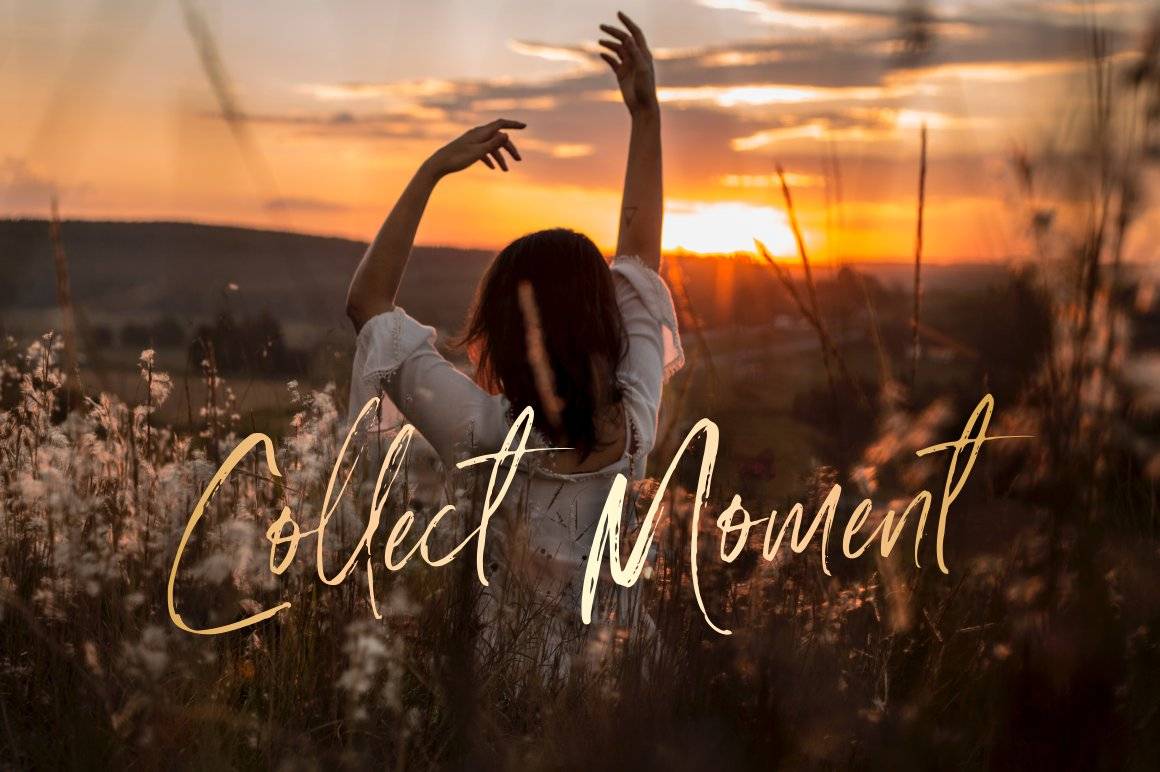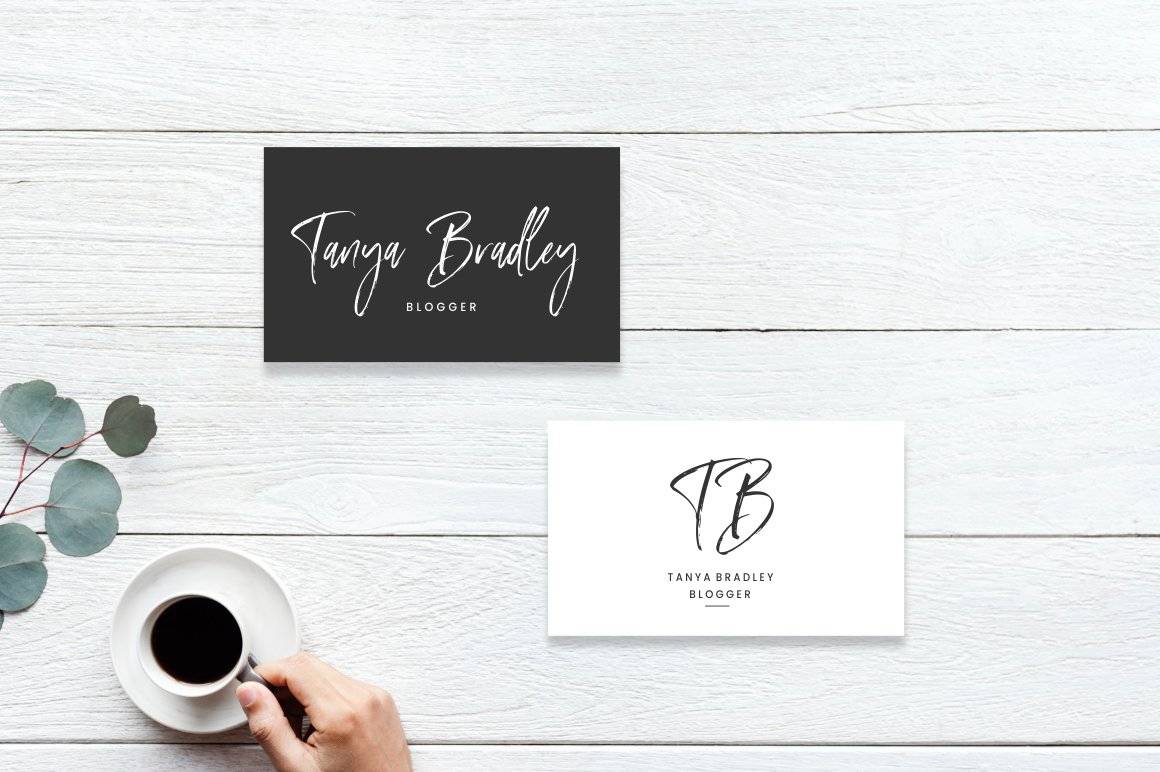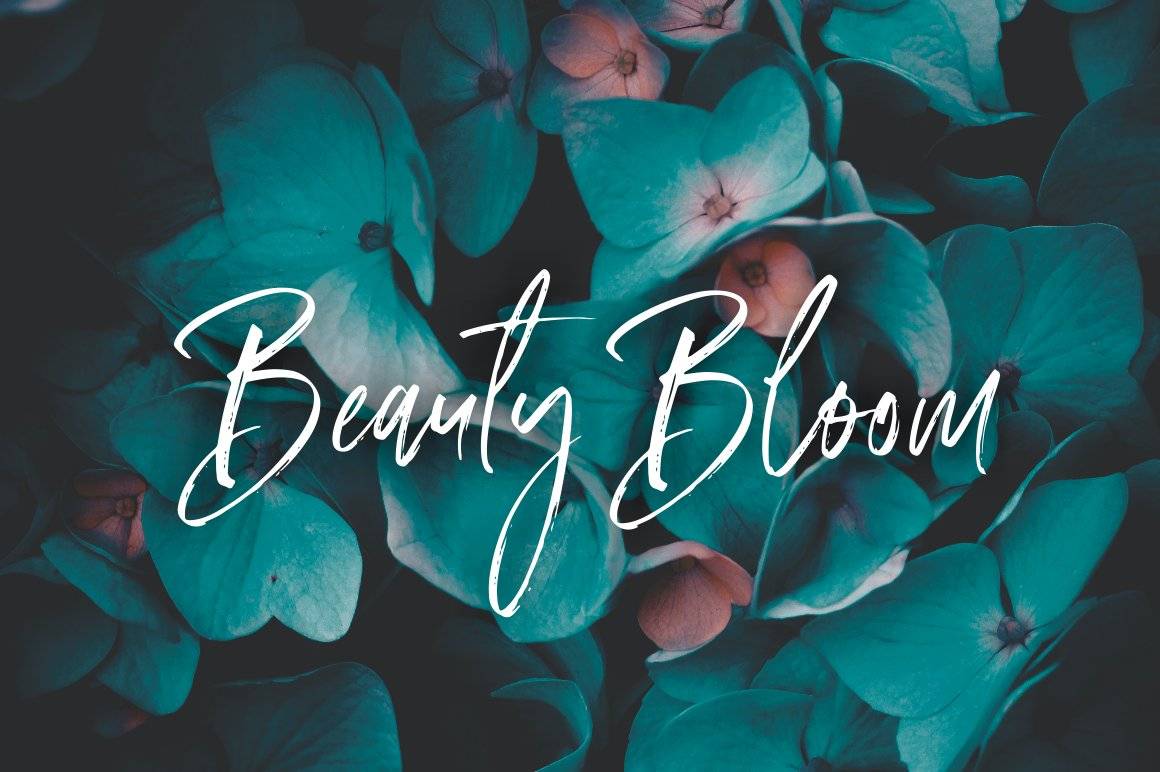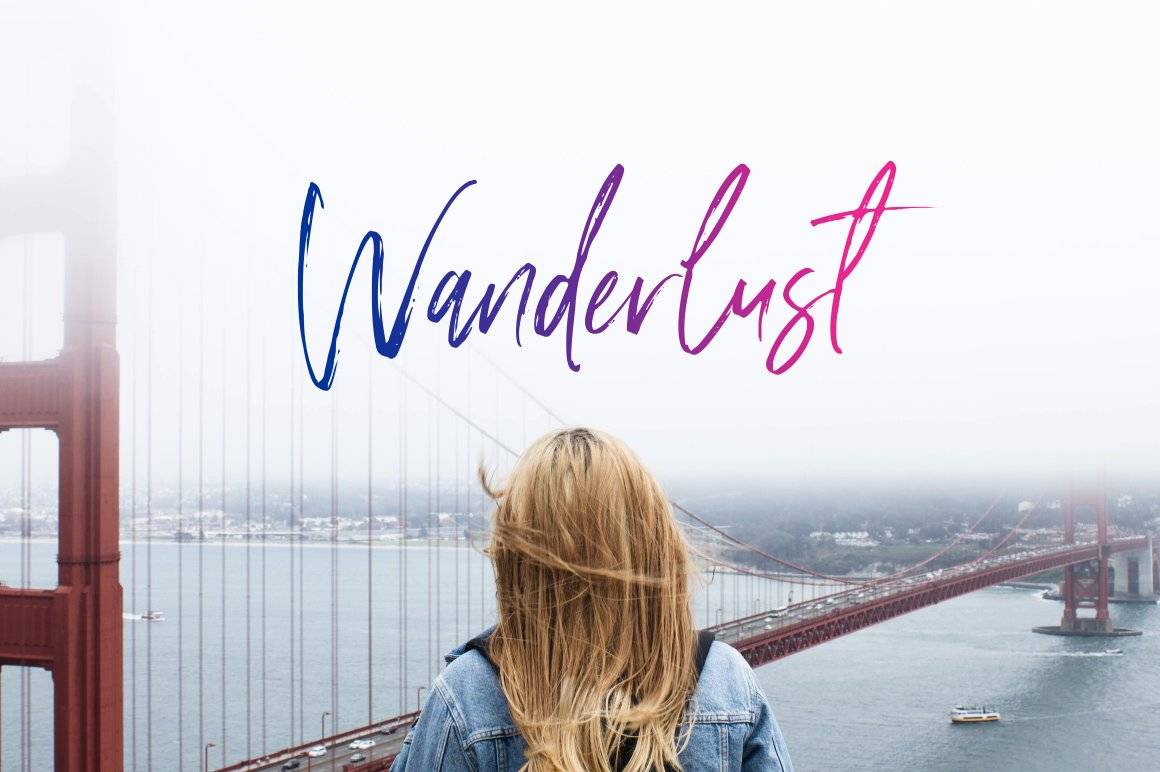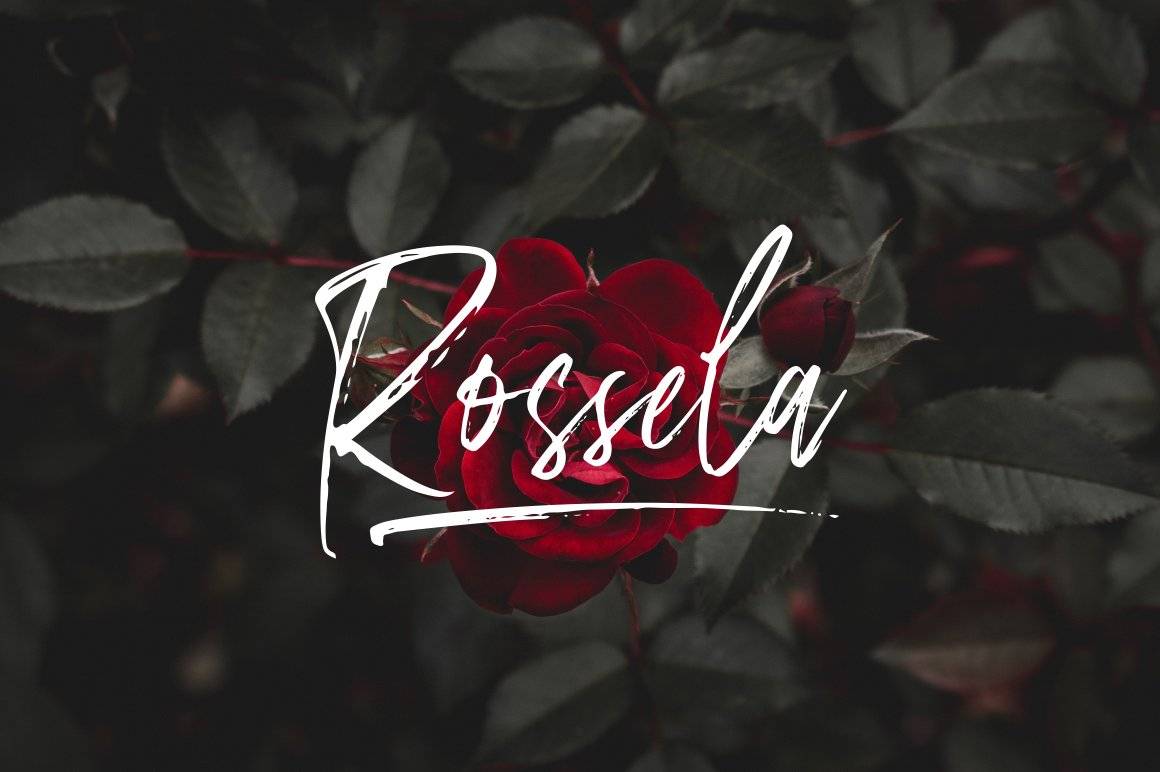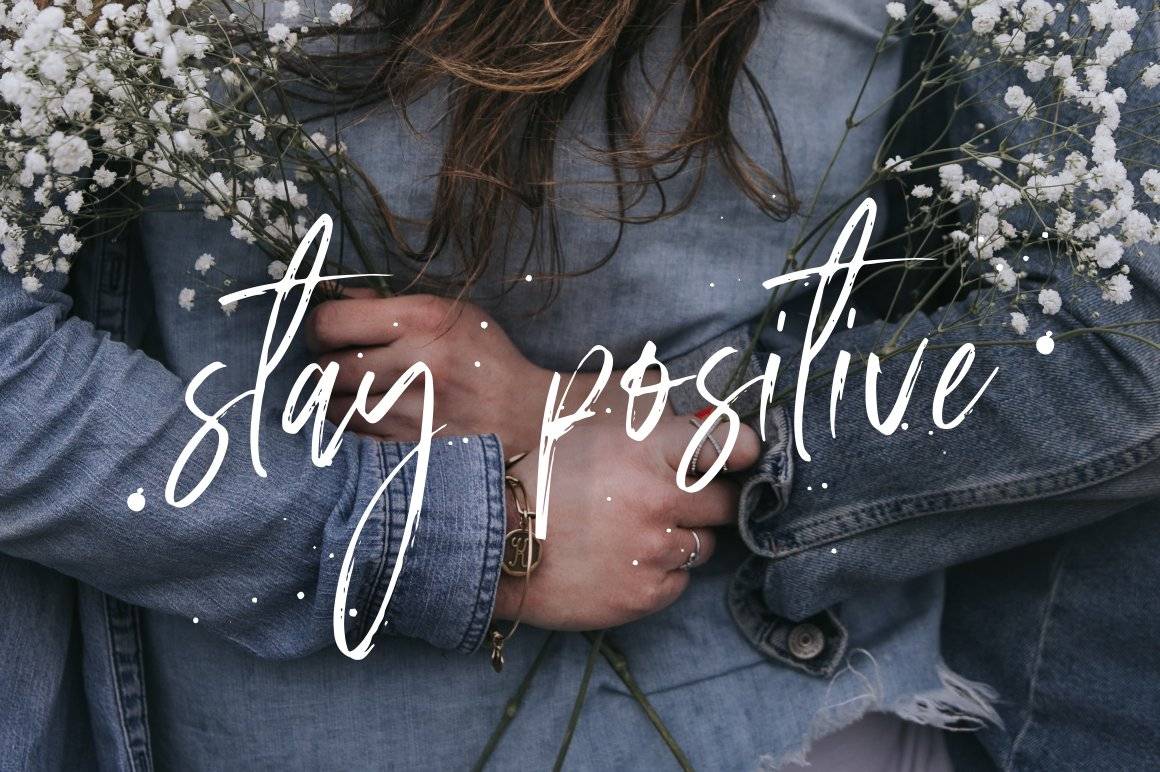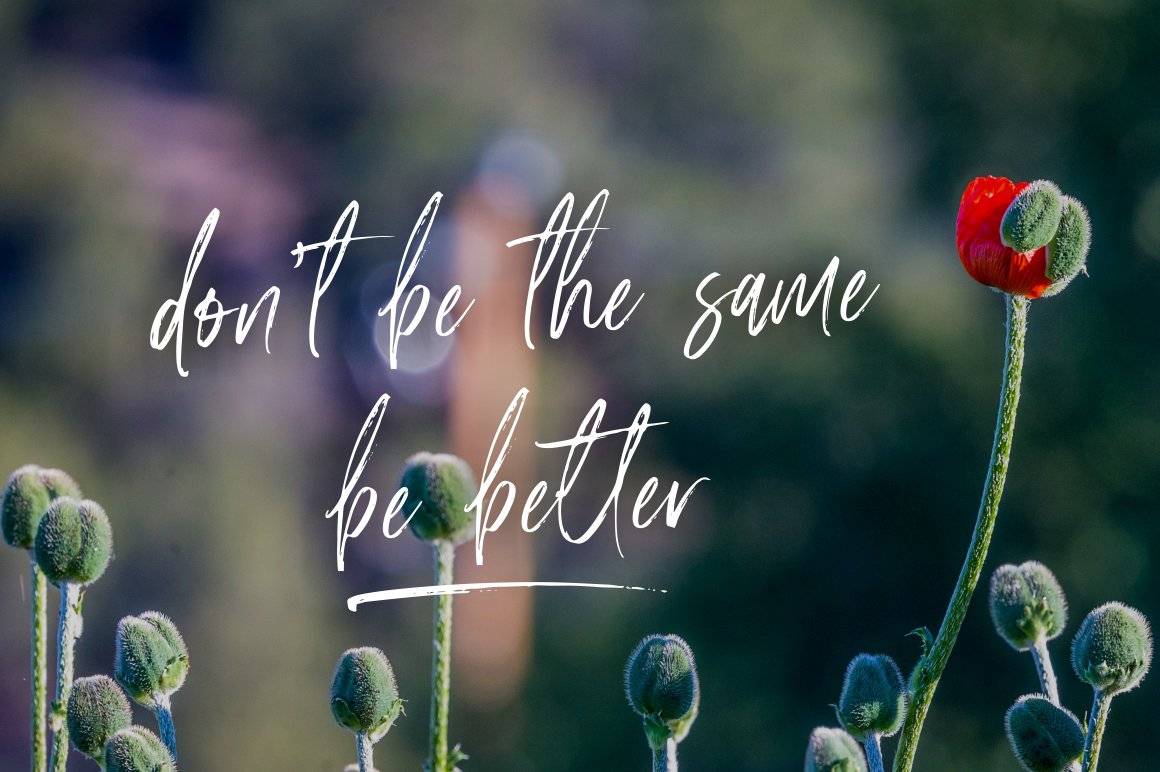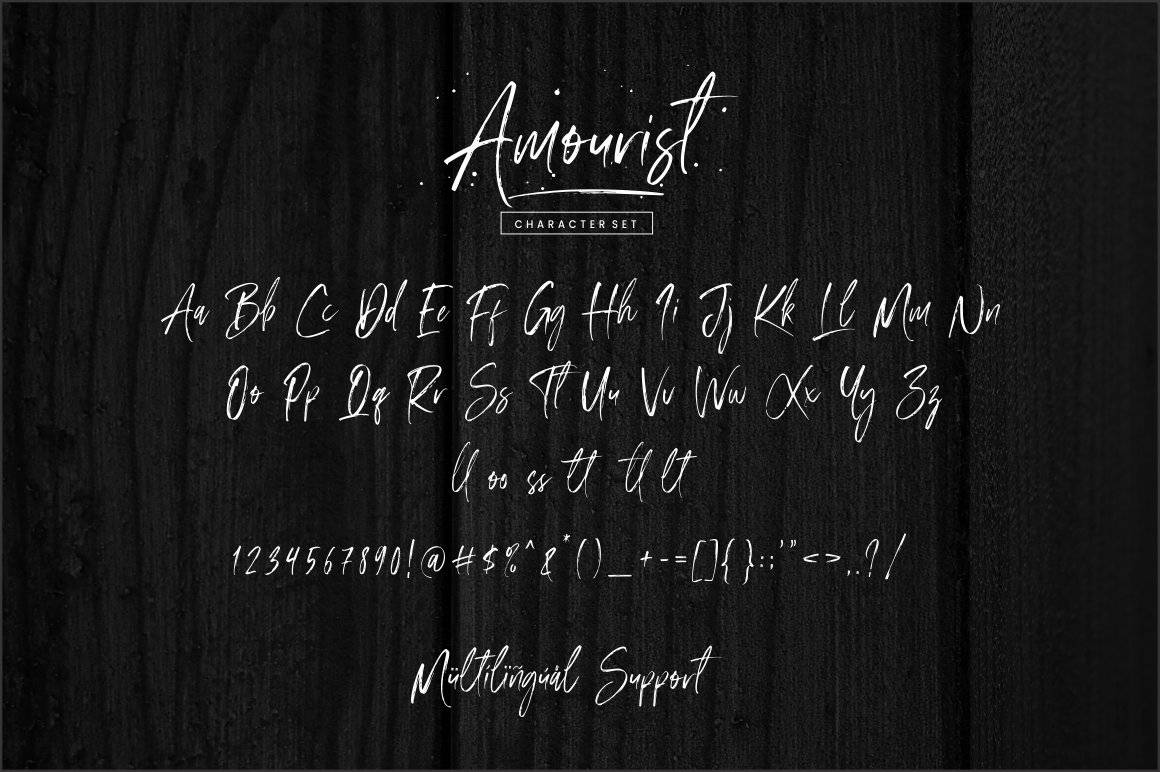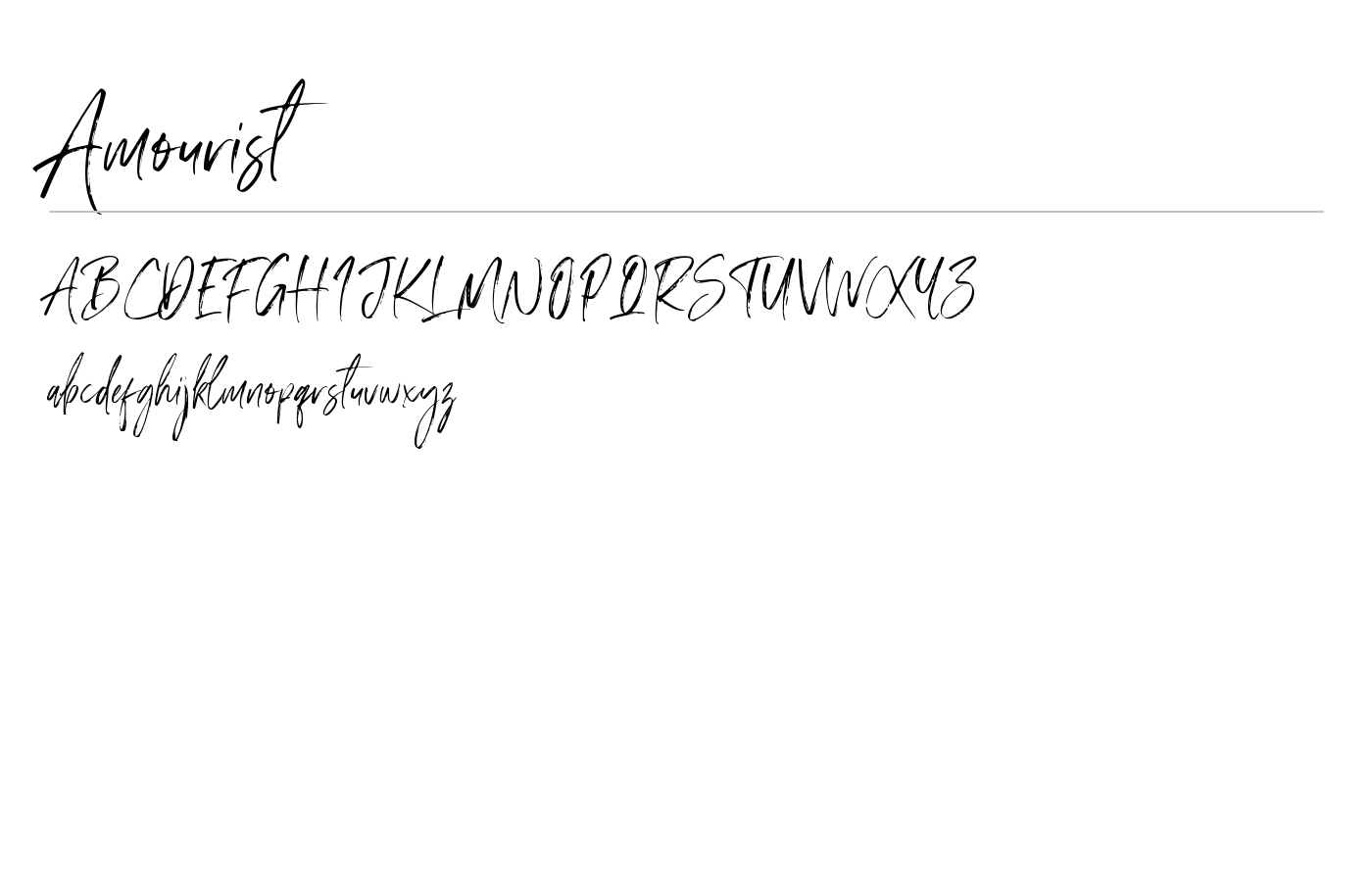
Amourist Handlettering Script is a lively and elegant handwritten script font characterized by its delicate, flowing strokes and natural brush-like texture. The font combines a slender, slightly irregular line quality with varying stroke weights, giving it a personal, artistic feel that works beautifully for romantic, creative, and feminine designs. Ideal for invitations, branding, and editorial accents, Amourist adds a charming, expressive touch that enhances warmth and sophistication.
Amourist Handlettering Script Font
About Amourist Handlettering Script Font
| Font family | Amourist Handlettering Script Font |
| Designer | Sronstudio |